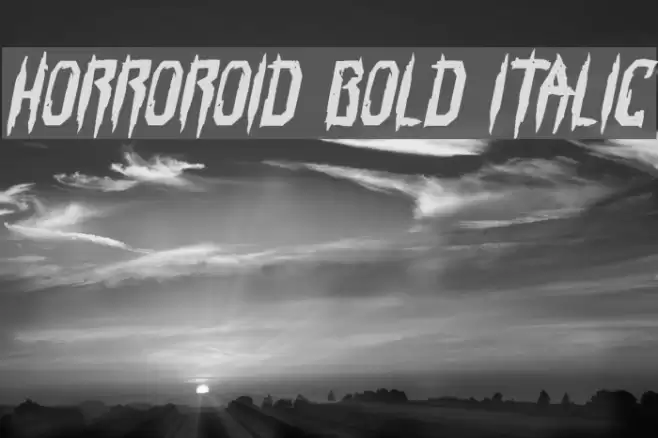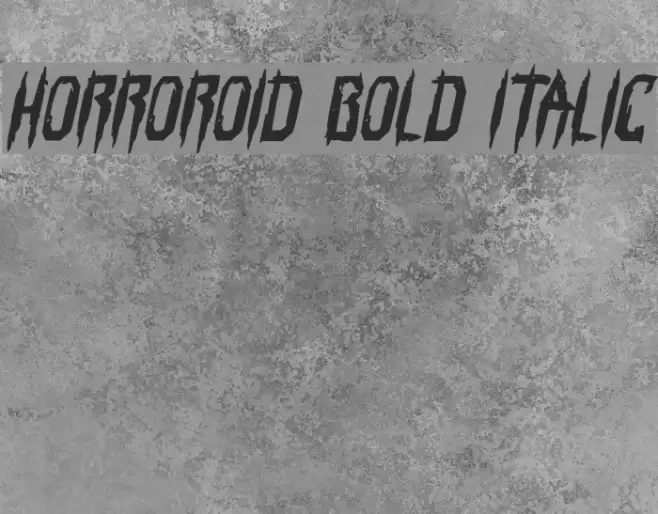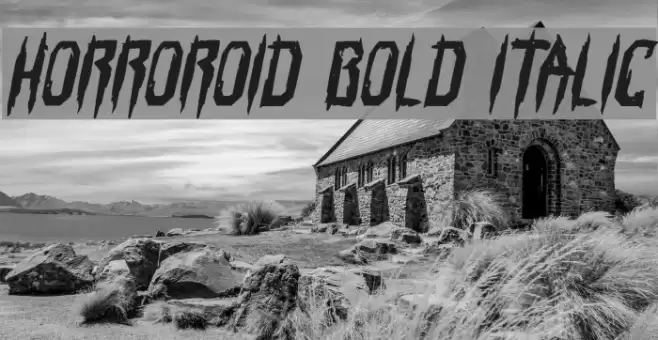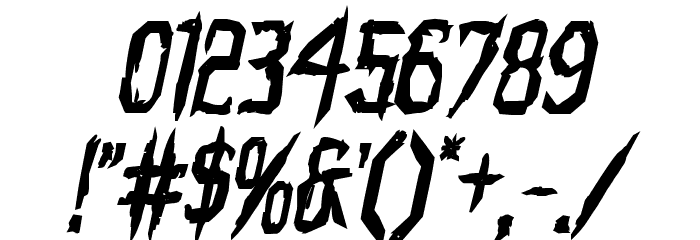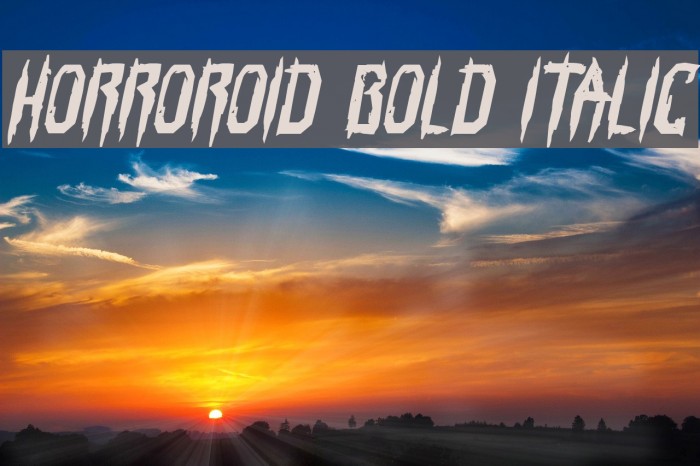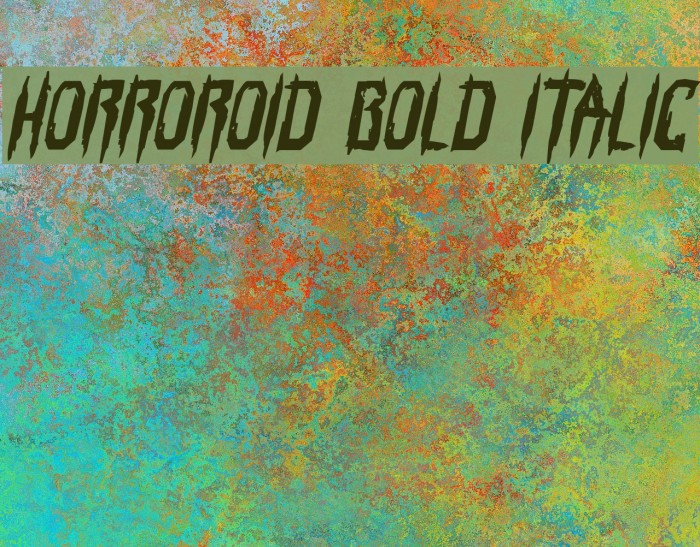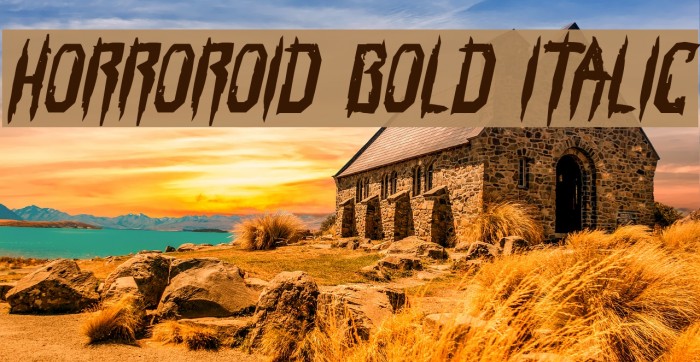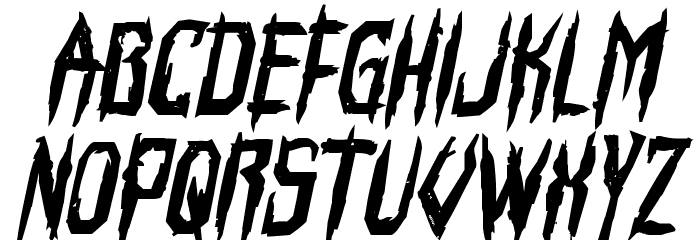
Horroroid Bold Italic Font
Horroroid Bold Italic Description
This font features a bold and italicized style with a distinctly jagged and sharp appearance, reminiscent of horror or thriller themes. The characters are designed with uneven edges and a slightly distressed look, giving them a dynamic and intense feel. The uppercase and lowercase letters maintain a consistent style, with exaggerated angles and pointed ends that create a sense of urgency and drama. The numbers and special characters follow the same aesthetic, ensuring a cohesive look across all text elements. This font is perfect for projects that require a bold and eye-catching design with a touch of the macabre.
A bold, italicized font with sharp, jagged edges ideal for horror themes from Horror fonts.
- Proposed Projects: Ideal for horror movie posters, Halloween event flyers, video game titles, and any project needing a dramatic, edgy look.